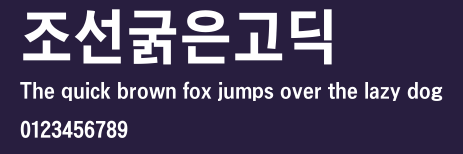
조선굵은고딕 Preview
About 조선굵은고딕.ttf
조선굵은고딕.ttf is a modern, elegant sans-serif font designed for ultimate readability and visual harmony. Perfect for branding, headlines, web design, and print materials.